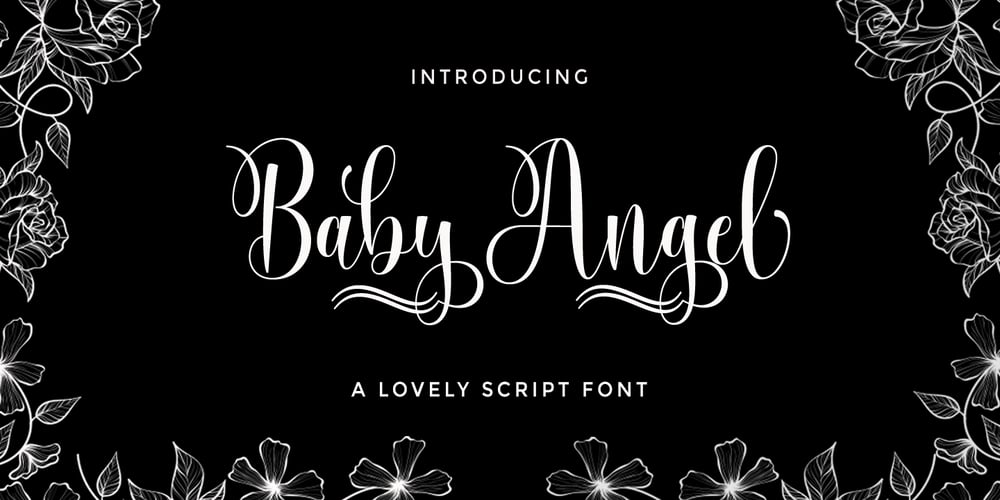
Baby Angel Font Family was designed by Reka Safriani and published by Selotype. Baby Angel contains 1 styles and family package options. Baby Angel Script is a beautiful calligraphy design, including Regular. This font can be used for various purposes such as logos, product packaging, wedding invitations, branding, titles, signs, labels, signatures, book covers, posters, quotes, and more.Baby Angel Script is coded with Unicode PUA, which allows access to all features without special design software. Mac users can use the Letter Book, and Windows users can use Character Maps to view and copy additional characters to paste into your favorite text editor / application.If you need help or have questions, let me know or send an email “SelotypeStudio@gmail.com” I’m happy to help 🙂 Thank you & Happy Design!